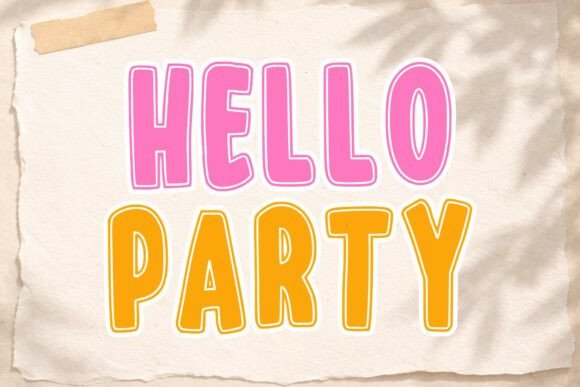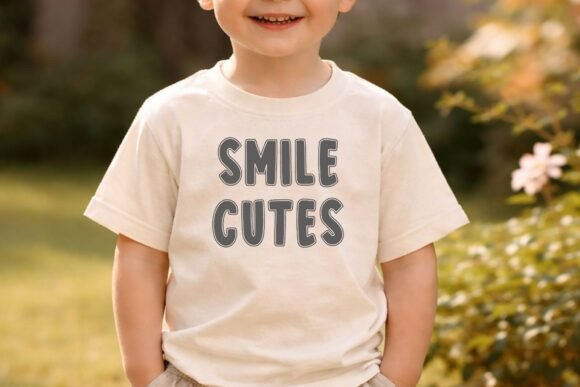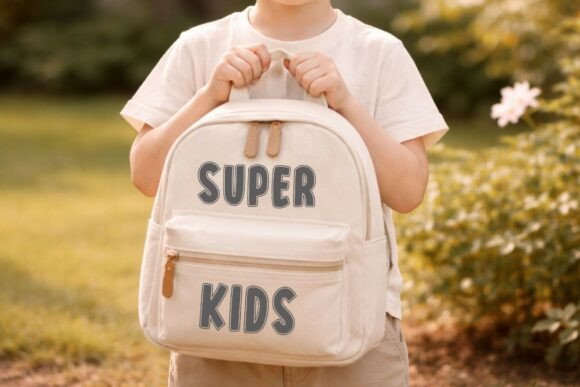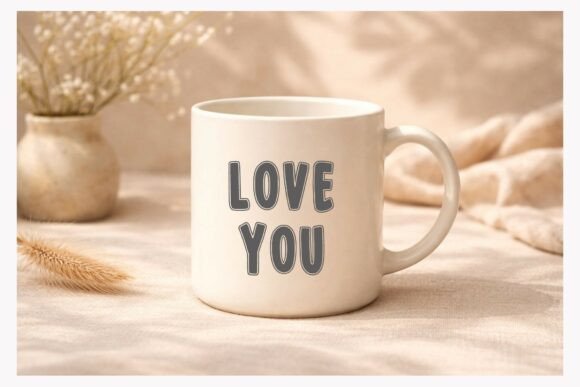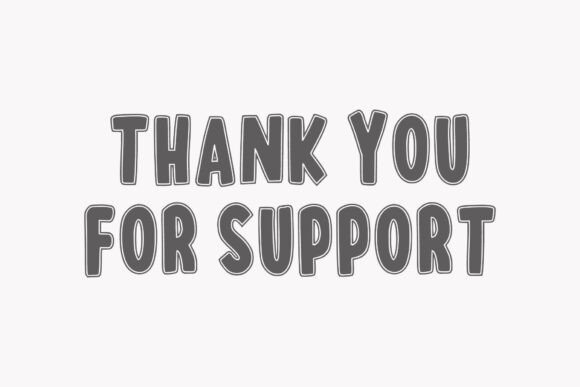
The Ultimate Design Game-Changer: Bounce Chunky Font
I’ll never forget the time I was working on a project for a kids’ birthday party, and I just couldn’t find the right font to match the playful vibe I was going for. The client wanted something fun, energetic, and eye-catching, but everything I tried seemed either too boring or too over-the-top. That’s when I stumbled upon Bounce Chunky, a bold and playful display font that instantly brought my design to life. In this article, I’ll share my love for Bounce Chunky, its features, and how to make the most of it in your designs.
What Makes Bounce Chunky Special?
Bounce Chunky is a bold and playful display font with a fun chunky style. It features thick rounded letters with a cheerful and energetic look, making it perfect for eye-catching designs. Its cute and vibrant appearance makes it ideal for kids’ designs, posters, branding, packaging, t-shirts, stickers, social media graphics, and more. Bounce Chunky brings a lively and friendly personality to any creative project and works beautifully for both digital and print designs.
Here’s what I love about Bounce Chunky:
• ✨ Unique and playful style: Bounce Chunky has a one-of-a-kind look that’s sure to grab attention.
• ✅ Ease of use: This font is incredibly easy to read and works well in various design contexts.
• 💥 Versatility: From kids’ designs to social media graphics, Bounce Chunky adapts seamlessly to different styles and formats.
• 🎉 Fun and energetic vibe: This font injects a dose of playfulness into any design, making it perfect for projects that require a cheerful tone.
As for quirks or limitations, I noticed:
• 🤔 Limited suitability for formal designs: Bounce Chunky is a playful font, so it might not be the best fit for formal or professional projects.
• ⚠️ Overuse can be overwhelming: While Bounce Chunky is amazing, using it excessively can make your design look cluttered or overwhelming.
The Story Behind Bounce Chunky
Bounce Chunky was designed with the intention of creating a fun and energetic font that would bring a smile to people’s faces. Its creator, a talented type designer, aimed to craft a font that would be perfect for kids’ designs, posters, and other playful projects. With its unique and playful style, Bounce Chunky has become a favorite among designers and crafters.
Can I use Bounce Chunky for digital and print designs? Absolutely! Bounce Chunky works beautifully for both digital and print designs, making it a versatile font for various projects.